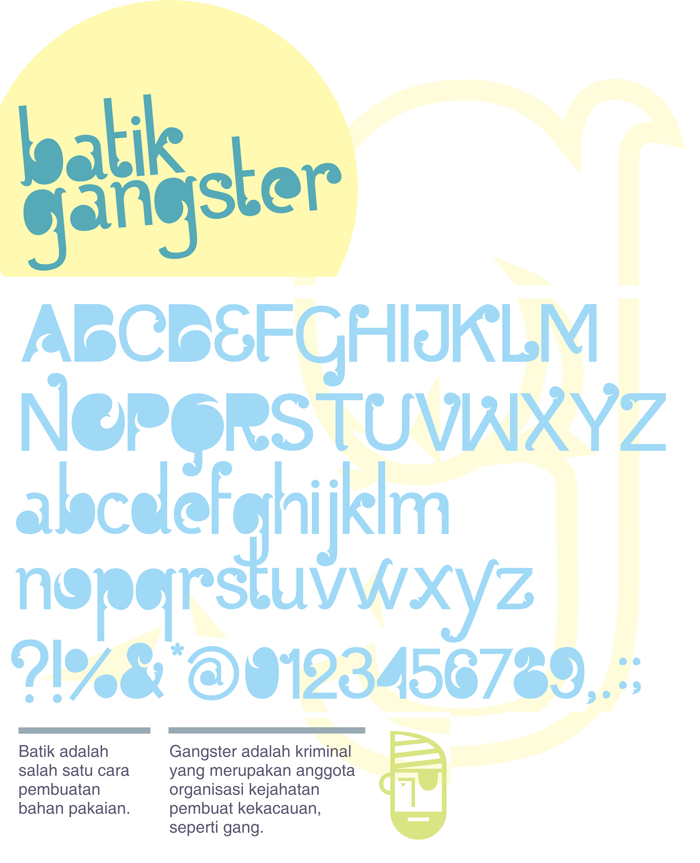
Batik Gangster Font
Batik Gangster. Really inspired by Batik it self, but word 'gangster' doesn't mean any thing. This font is sans serif font basically, but the decoration added in the every tip of the letters. Enjoy and download. Do commercial as you like (please contact me)
Keren font-nya gan! Namanya boleh juga tuh, GANGSTER.... hehehe
That's a really neat font, especially with the curves!